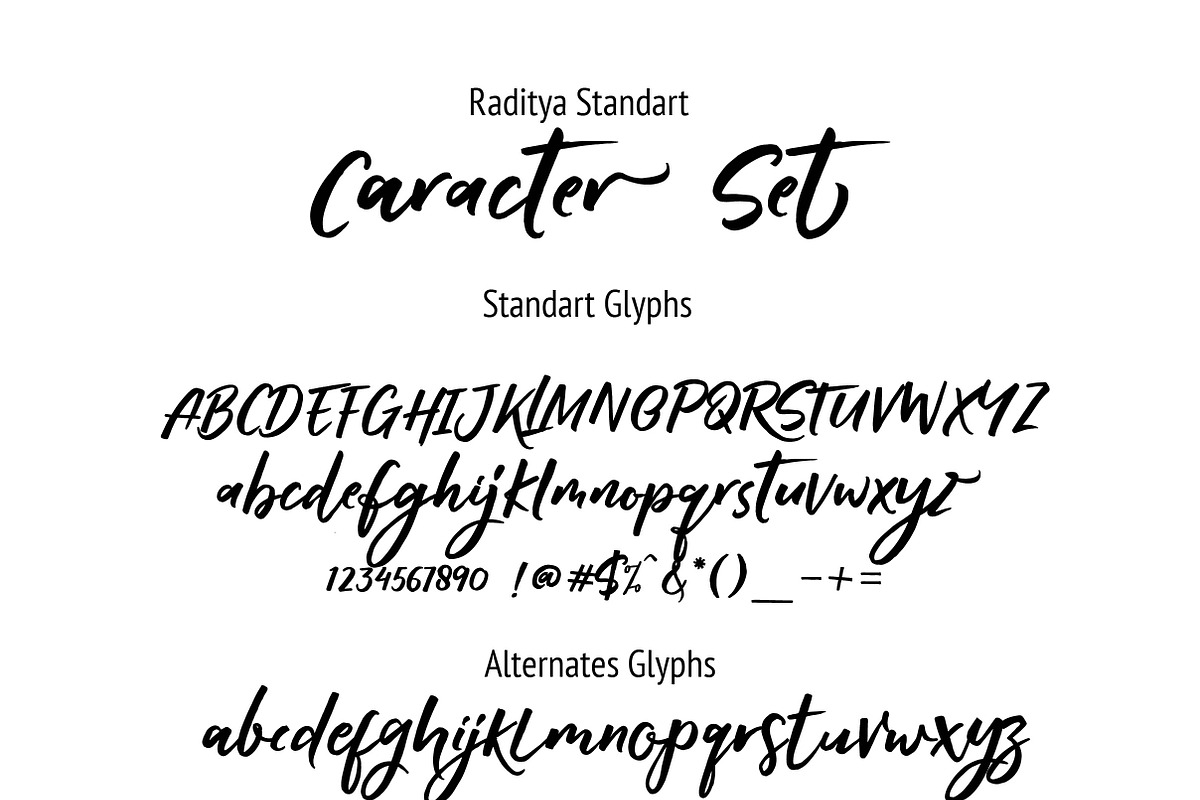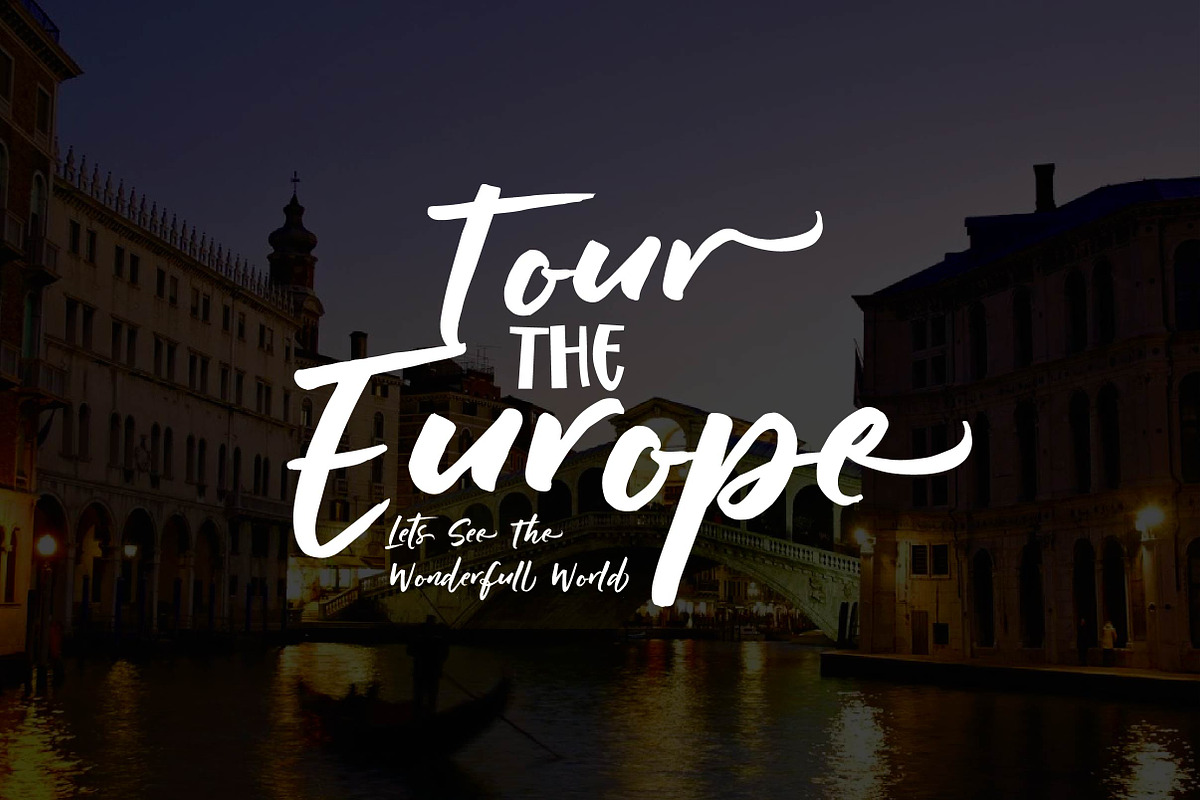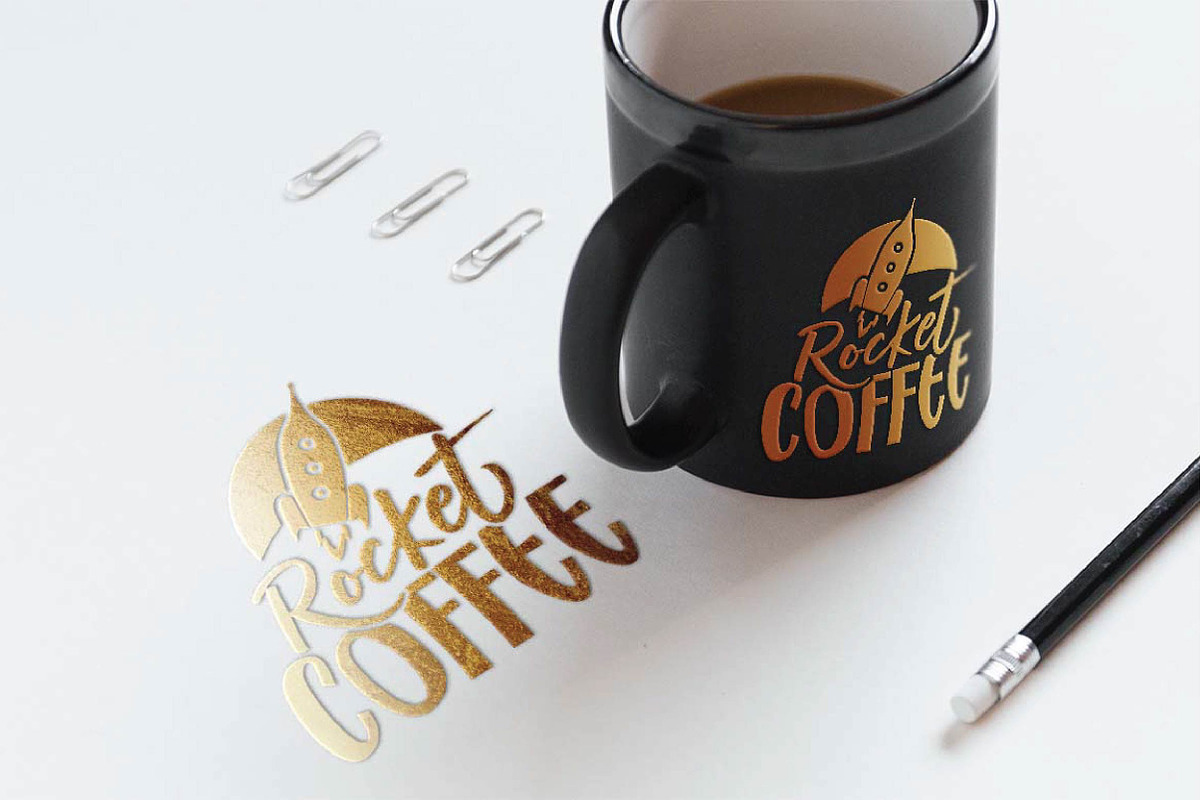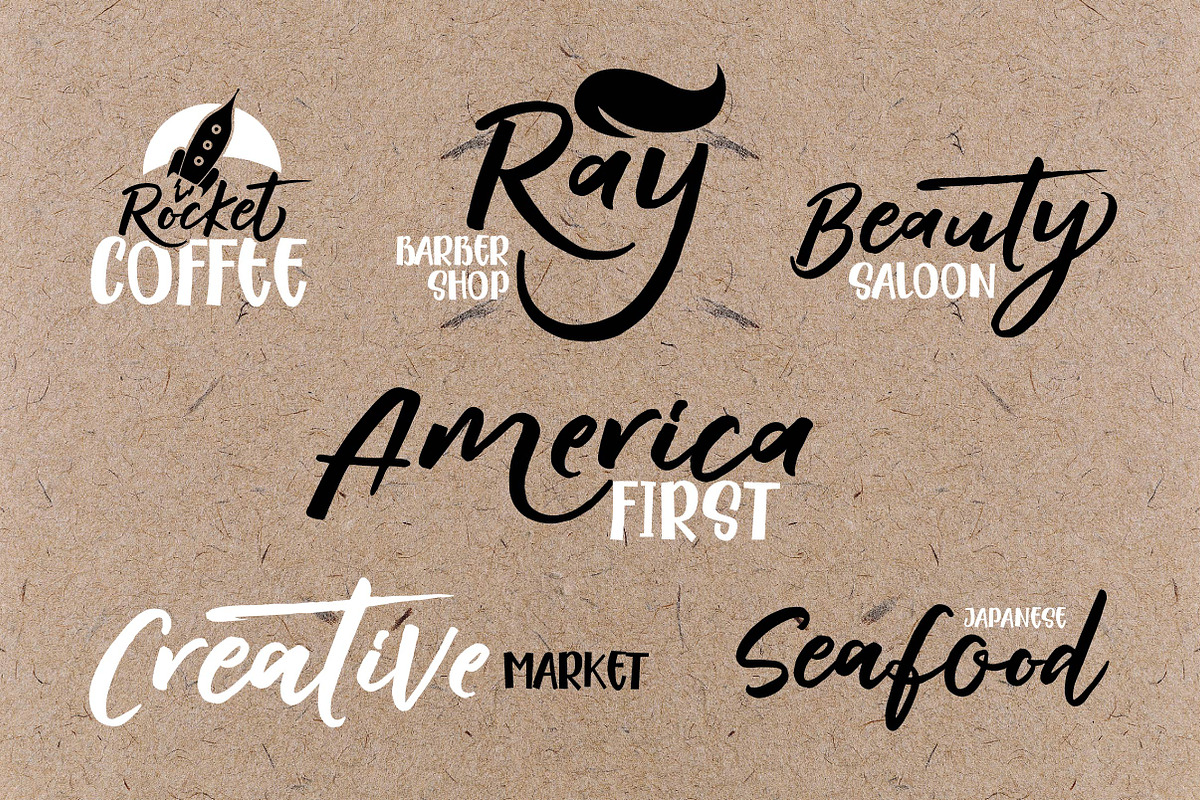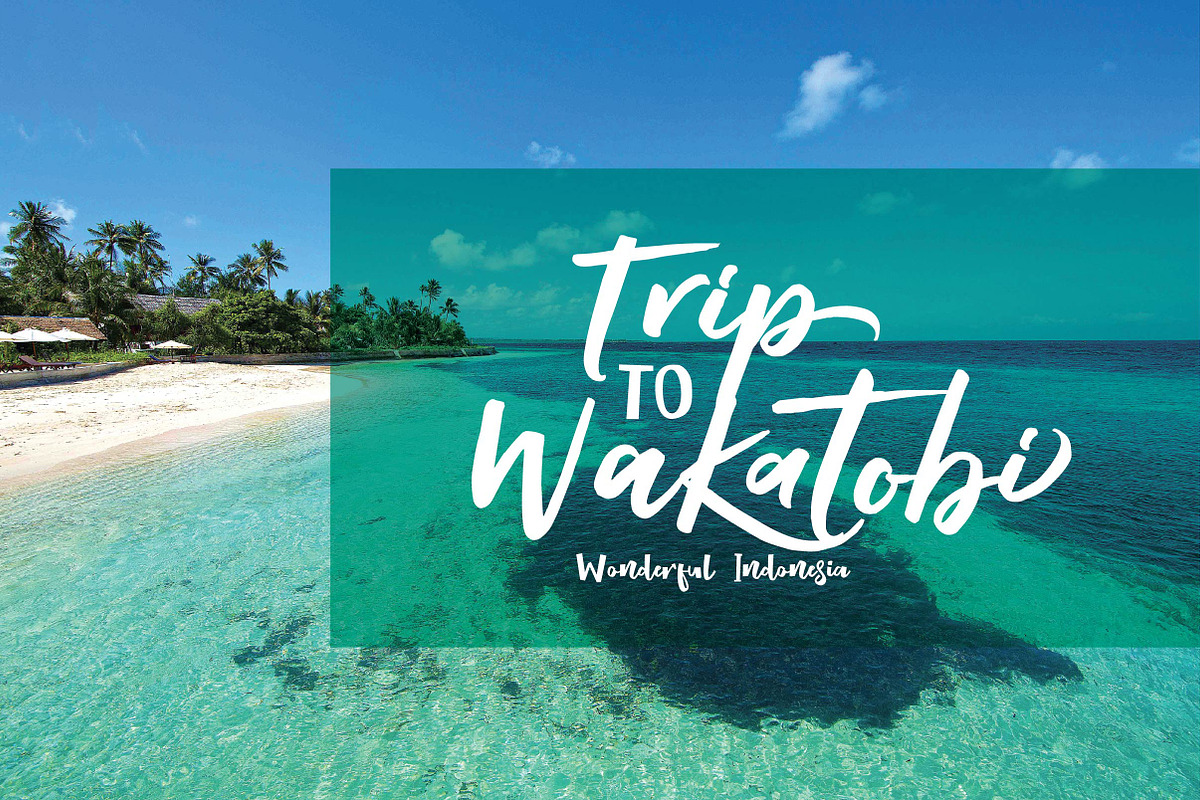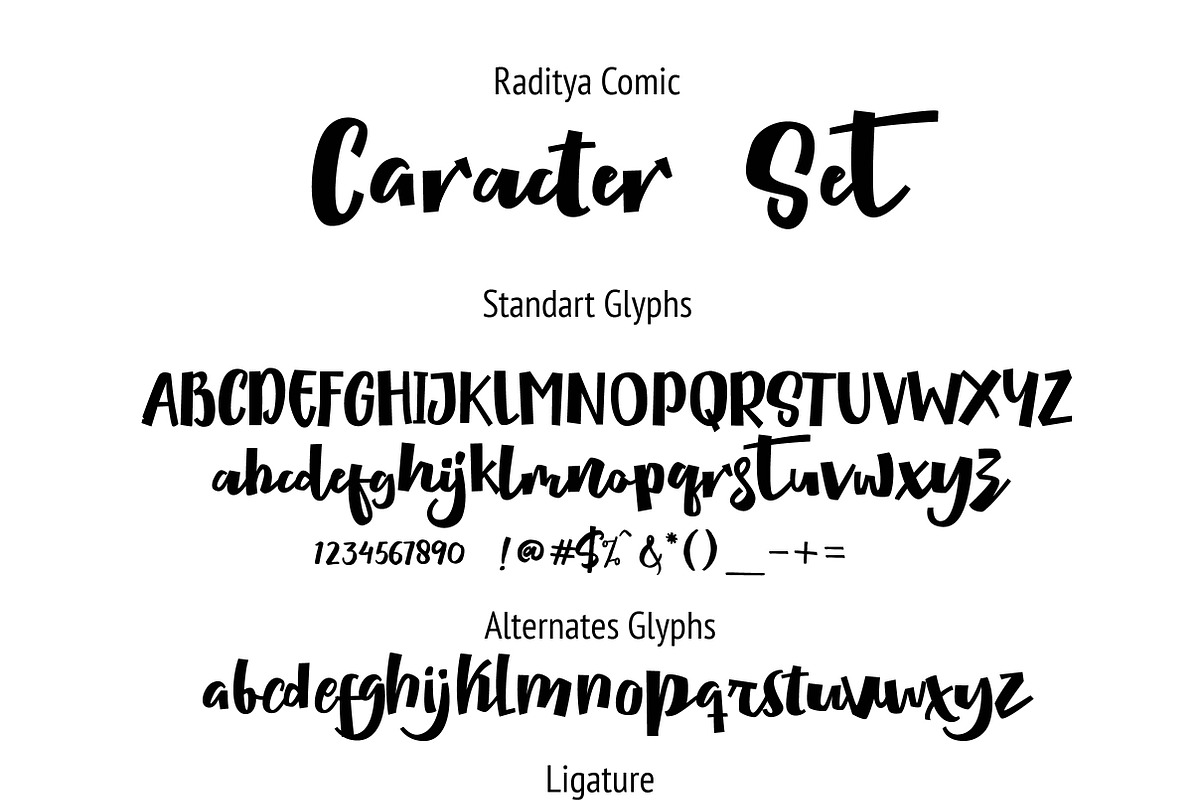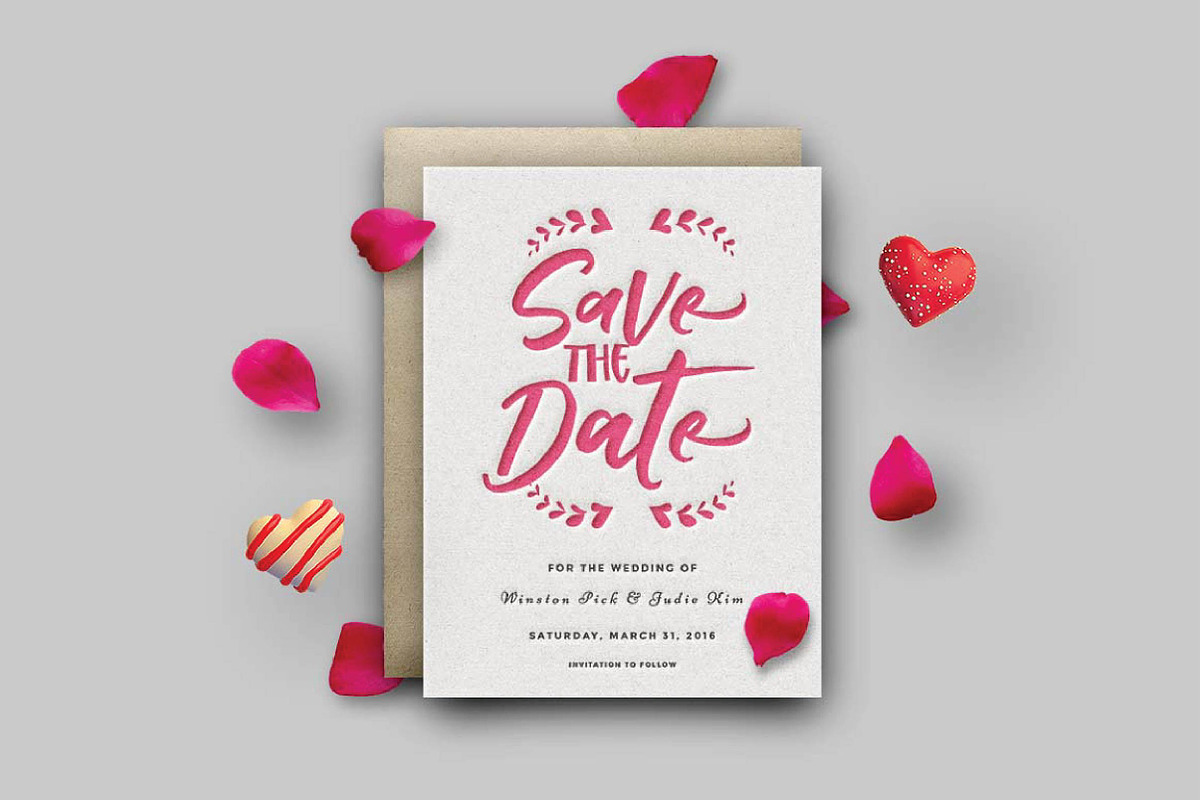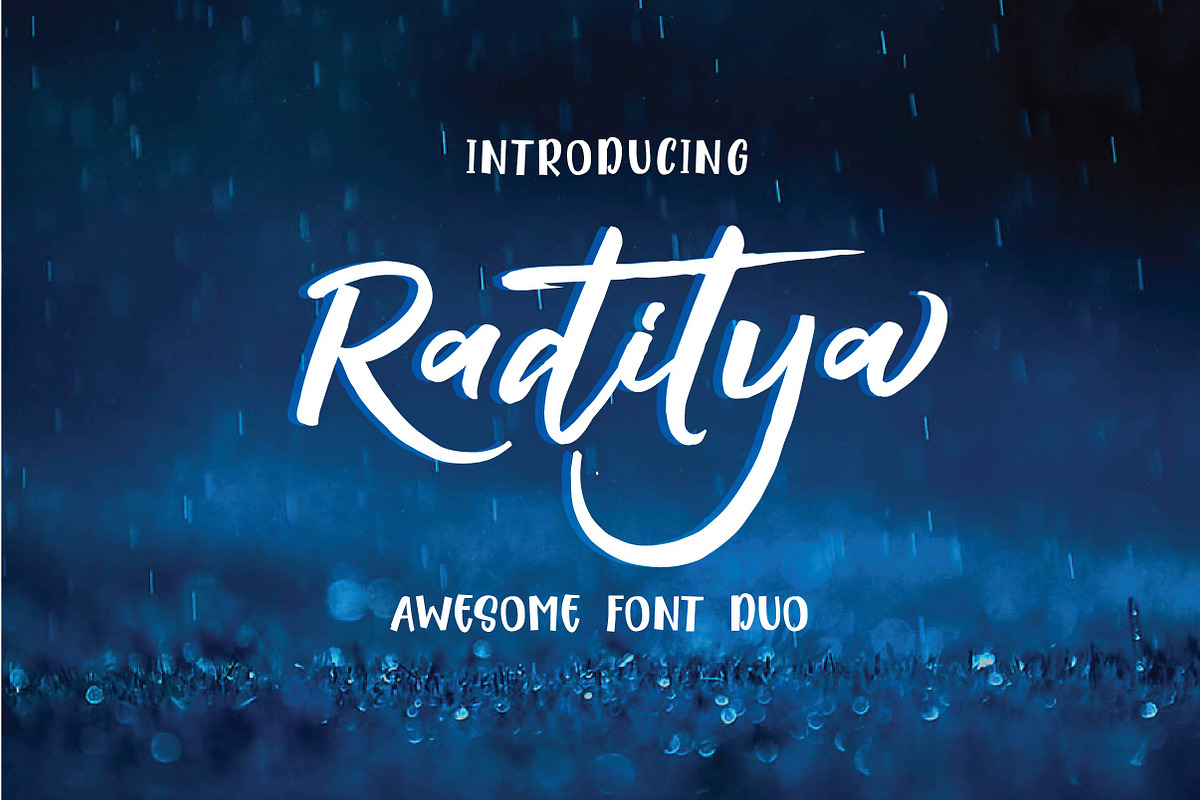
Raditya Font Duo
Raditya Font Duo by Olexstudio is a font selected for branding, posters, packaging, typography.
- hi Friends......Welcome january Raditya is a beautiful hand lettering, It suitable for Signature, greeting cards, T-Shirt, Logo, Branding or
Why Raditya Font Duo is worth a look
Raditya Font Duo by Olexstudio fits naturally into Branding, posters, packaging, typography.